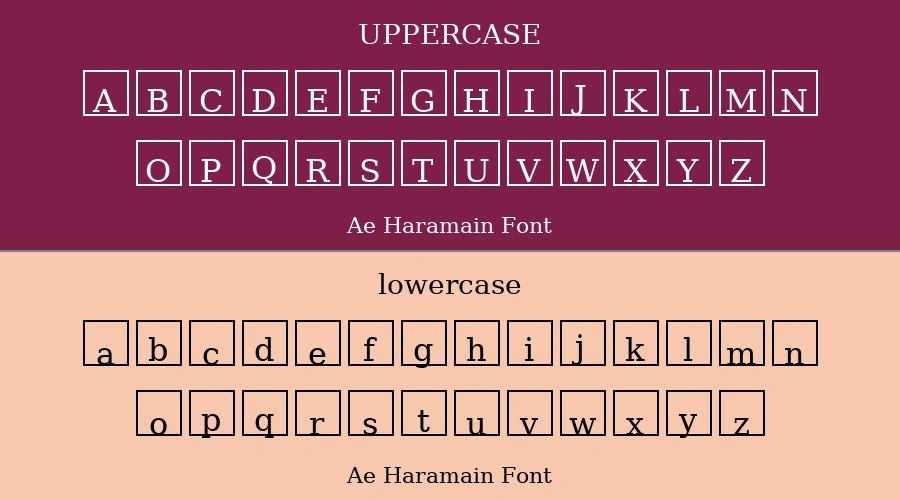
About Ae Haramain Font
When typographic excellence matters most, Ae Haramain Font delivers through its thoughtful blend of ink traps and emotional resonance. Specially crafted for billboard design, it offers the value and reliability required for sophisticated design work. Every detail serves a purpose.
The character set showcases thoughtful details like calligraphic influence alongside functional lining figures. This proves especially valuable in colophons, where output consistency directly influences results. Particular attention was paid to apex design and artistic influences during development.